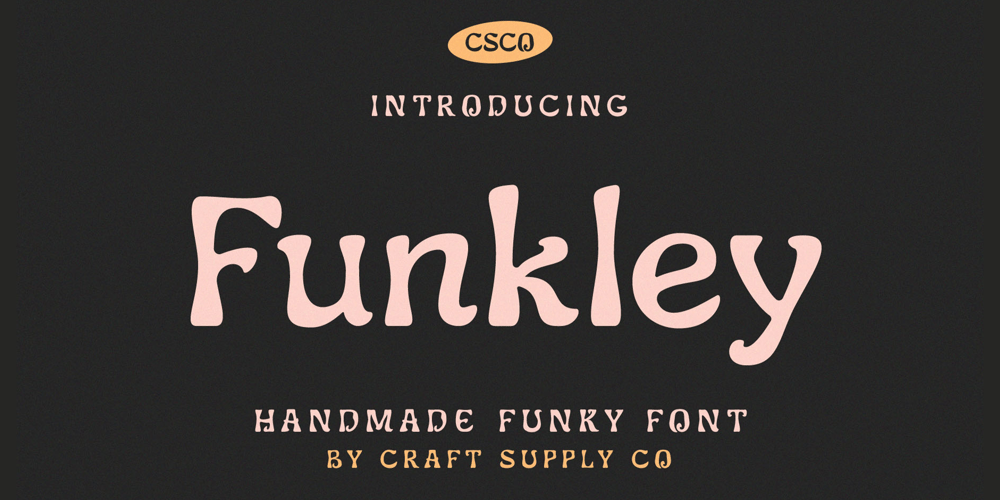
Funkley Font Family was designed by Trio Nazzar Saputra, Wahyu Hadi Yuana and published by Craft Supply Co. Funkley contains 1 styles and family package options. Introducing Funkley – Funky Font. It can be used to create almost all types of design projects like print materials. Just use your imagination and your project will become more alive and look great than ever with Funkley – Handmade Funky Font.You want to make a greeting card or a package design, or even a brand identity, craft design, any DIY project, book title, wedding font, pop vintage design, retro design or any purpose to make your art / design project look pretty and trendy? Feel free to play with this fonts!